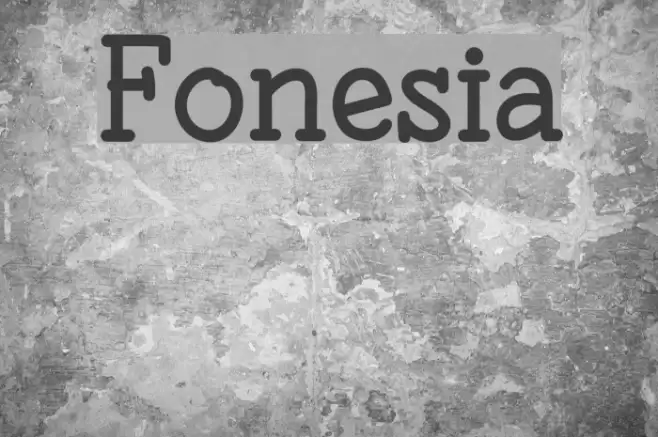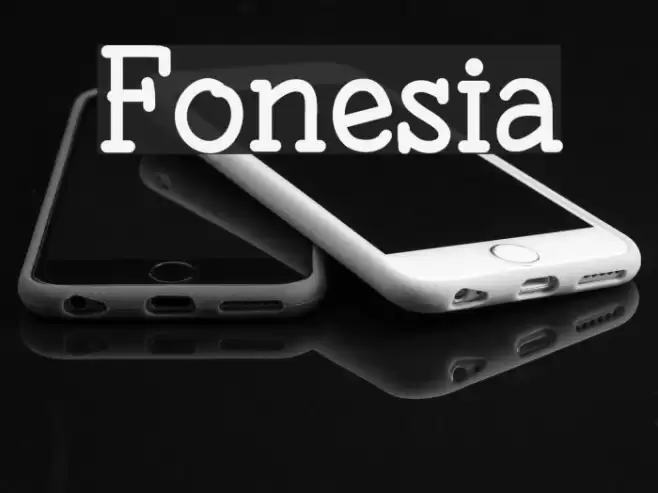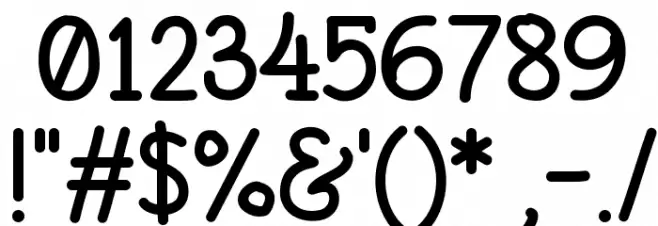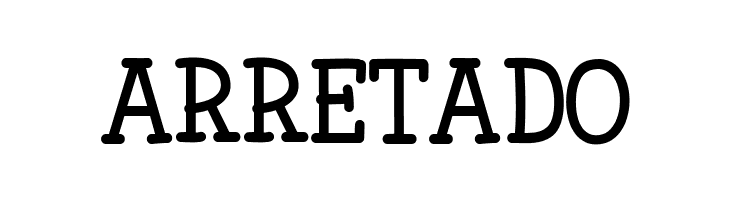
Fonesia Font
Fonesia Description
This font features a classic serif style with rounded edges, giving it a friendly and approachable appearance. The characters are well-proportioned with a moderate stroke contrast, making it versatile for various design needs. The uppercase letters are bold and prominent, while the lowercase letters maintain a consistent flow, enhancing readability. Numerals are clear and distinct, and the special characters are designed to complement the overall aesthetic. This font is suitable for both digital and print media, offering a timeless appeal that can adapt to modern design trends.
A classic serif font with rounded edges and moderate contrast, offering a friendly and versatile style from Fancy fonts.
- Proposed Projects: Ideal for book covers, editorial layouts, branding materials, and website headers.
- Overall Style: Classic